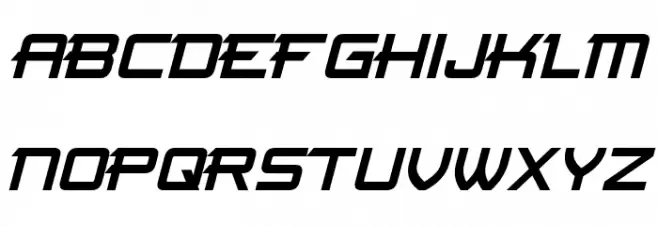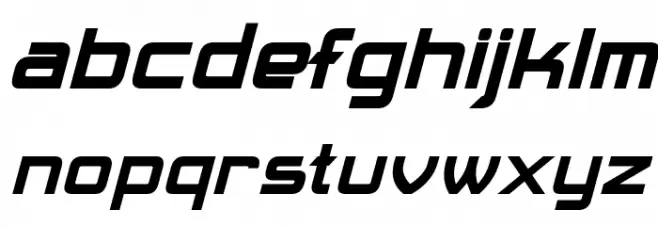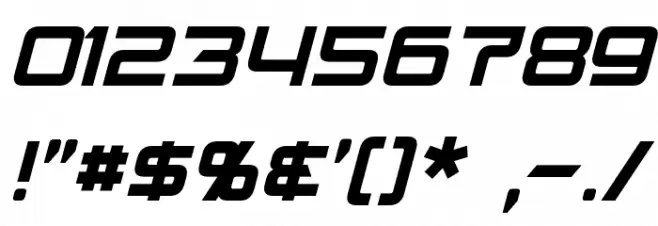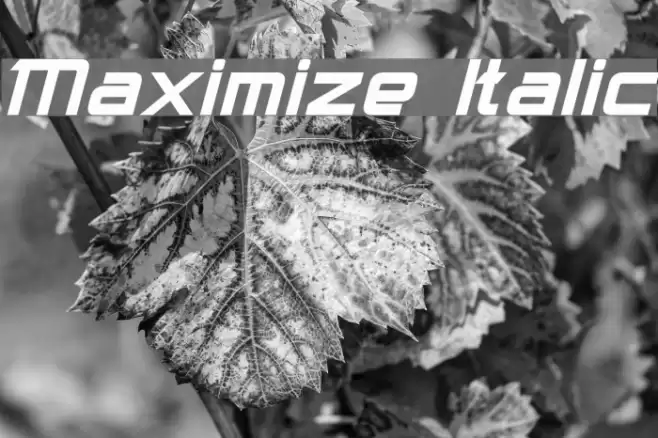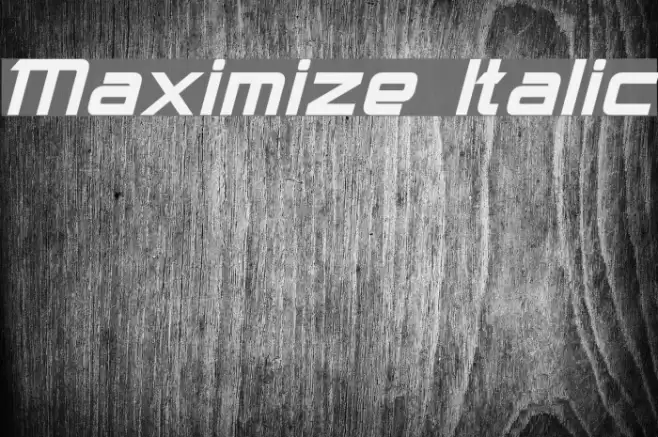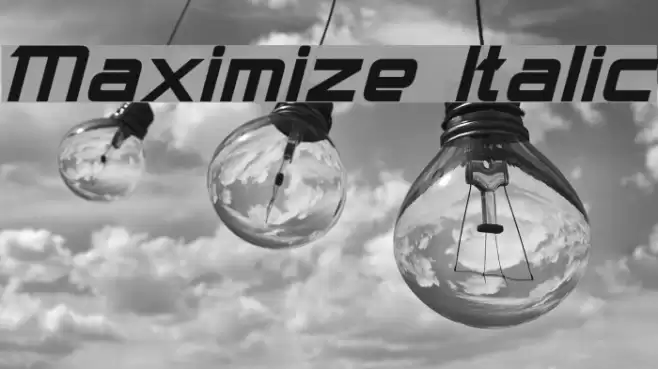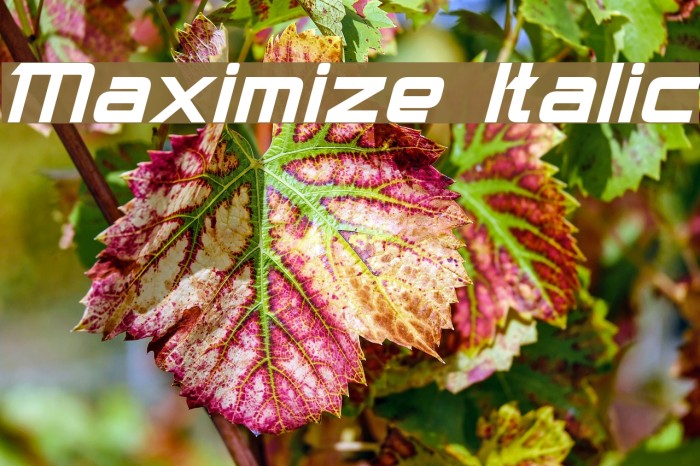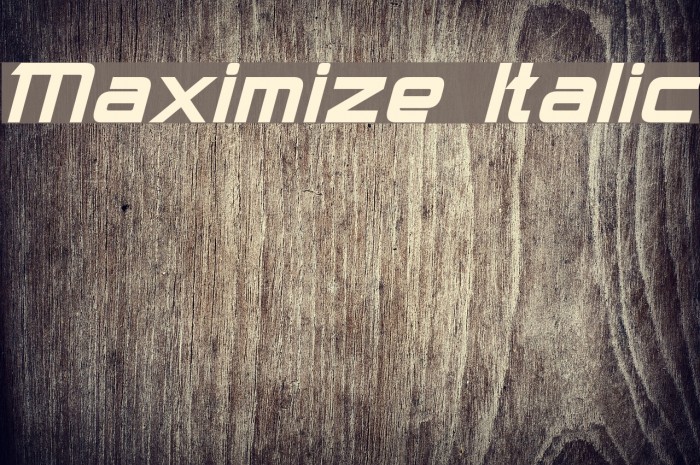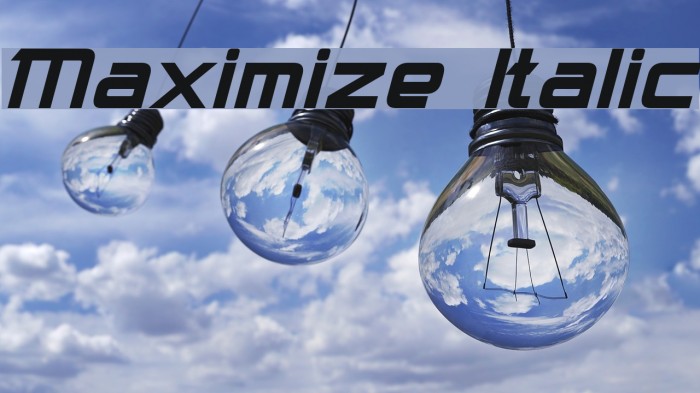
Maximize Italic
This font features a dynamic and modern italic style with a distinct slant, giving it a sense of motion and speed. The characters are bold and angular, with sharp edges and a futuristic appearance. The uppercase and lowercase letters maintain a consistent style, with the lowercase letters slightly more rounded. The numbers and special characters follow the same design principles, ensuring uniformity across all glyphs. The font's design is sleek and contemporary, making it suitable for projects that require a bold and energetic aesthetic.
A bold, italic font with a modern, angular design.
- Proposed Projects: Ideal for sports branding, automotive advertisements, tech company logos, and dynamic poster designs.